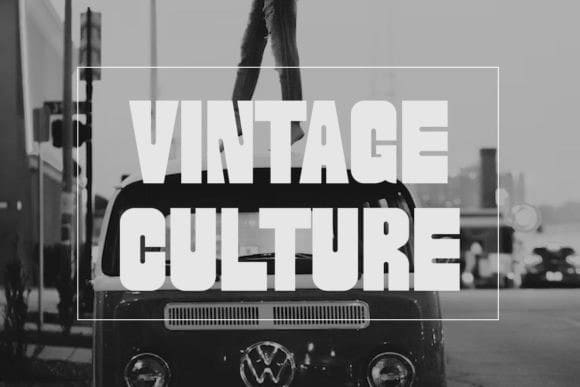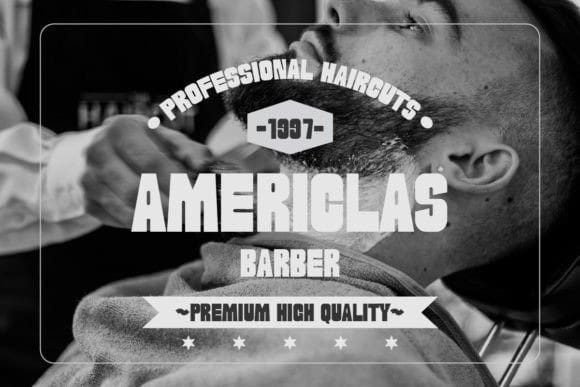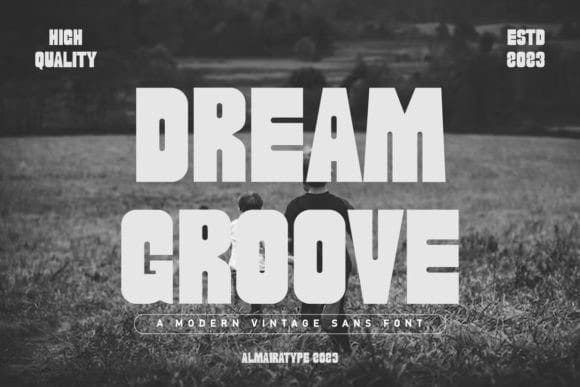
Dream Groove Font
Dream Groove Font is a Display font with a stunning and cool Vintage style. This font is suitable for crafts, headlines, branding, business, print, t-shirts, apparel, Cricut, silhouettes and other creative ideas!